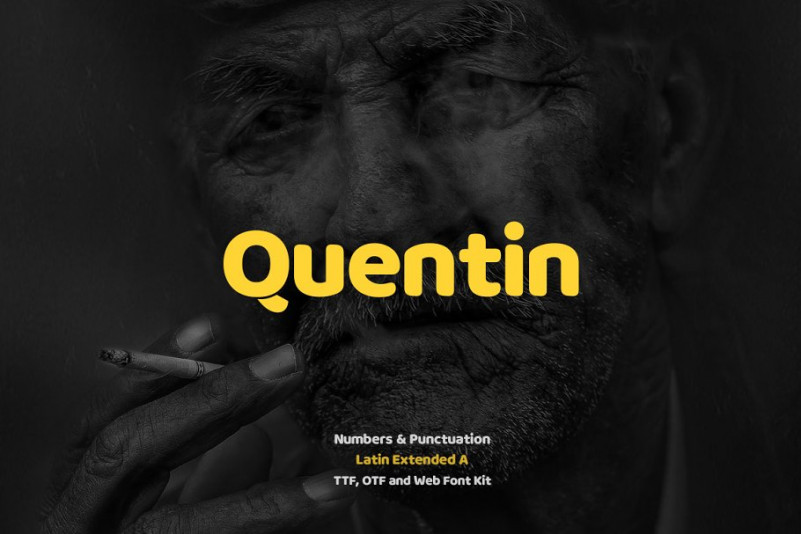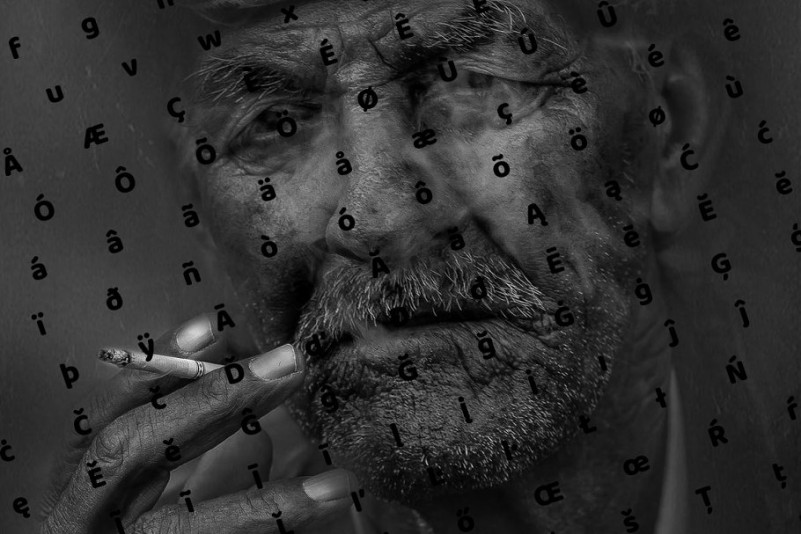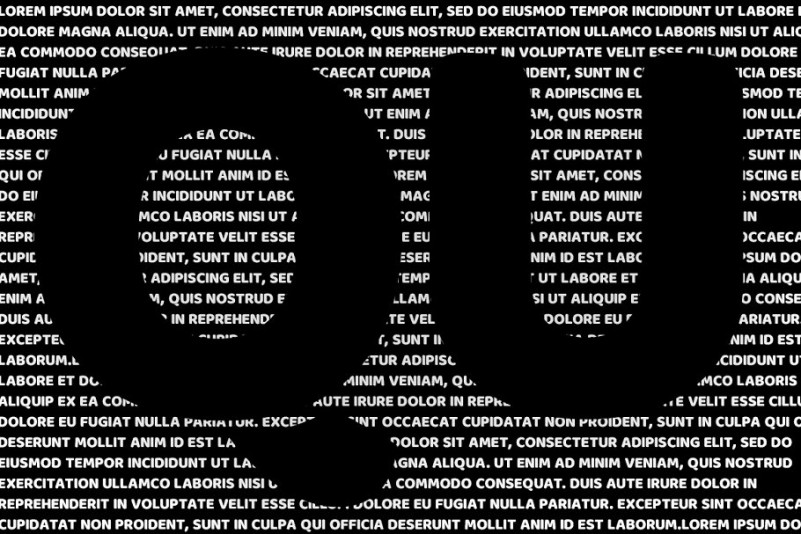
Quentin Pro Typeface + Webfonts
Quentin Pro Typeface
Quentin Pro is a Modern Sans Serif typeface very much suitable for Film Posters, headlines, Block letter, Subheading, Logo Designs, Big Banners. Creative & Decorative Typography Web Designs.